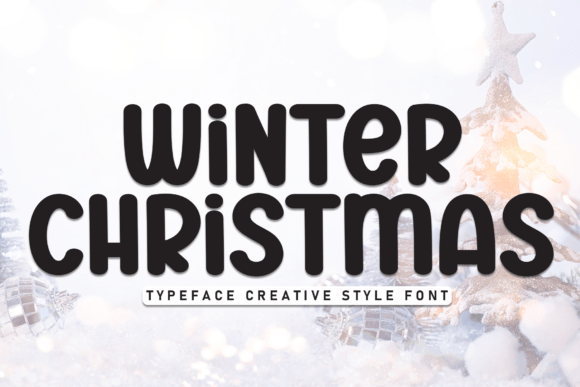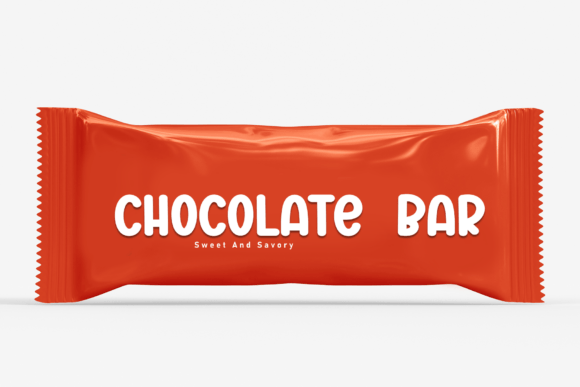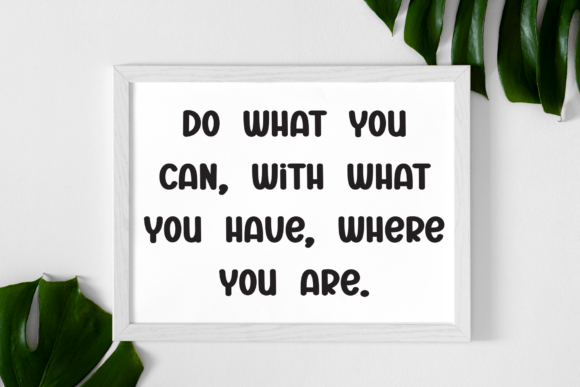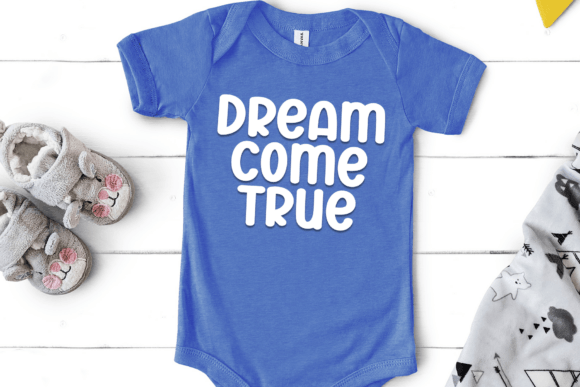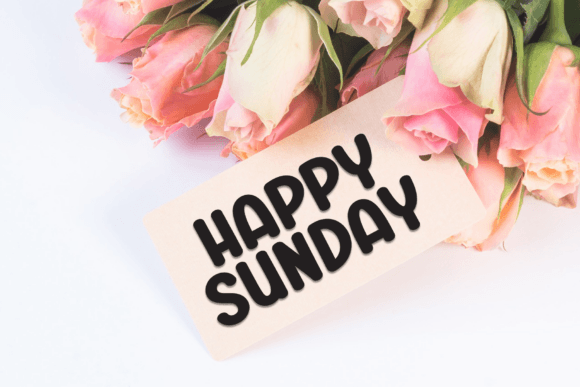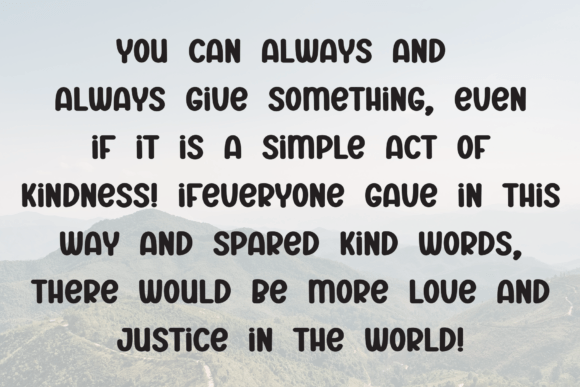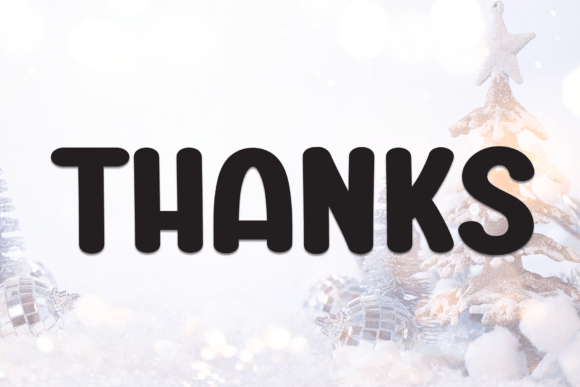
Winter Christmas Font
Winter Christmas Font is a bold display font designed for festive occasions. It features playful, rounded letters with a wintery vibe, perfect for holiday greetings, invitations, and decorations. The font is easy to read and adds a cheerful touch to any Christmas design!